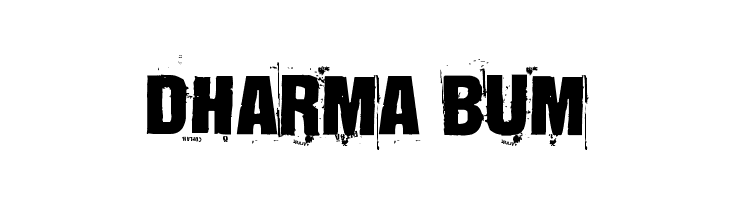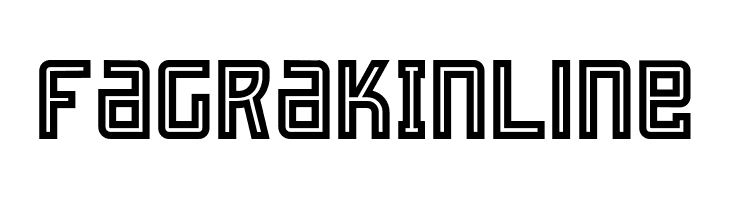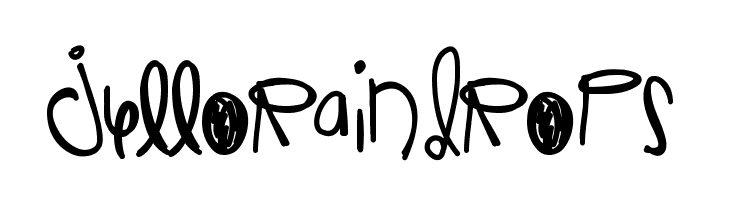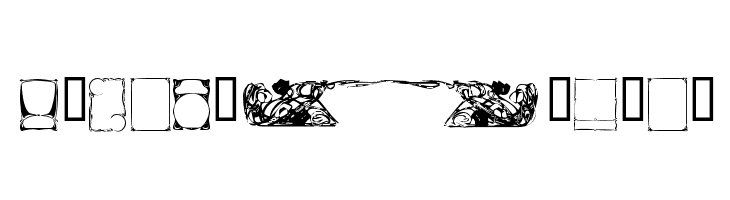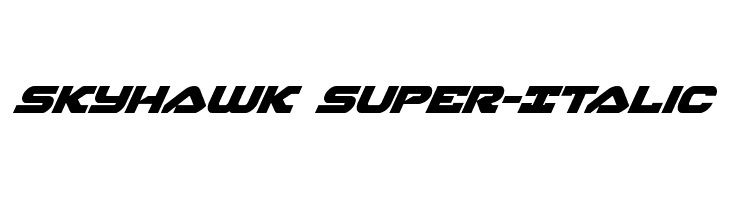
A futuristic, slanted font with bold, condensed characters and medium contrast.
A playful, decorative font with bold, textured letters filled with sprinkle-like patterns.
A bold, italicized font with dynamic slant and strong visual impact.
Hand-drawn floral doodle decorative set.
A playful, handwritten font with fluid, irregular strokes.
A bold, decorative font with a vintage, three-dimensional style.
A playful, casual handwritten font with smooth curves and a friendly feel.
A bold, 3D outlined font with a futuristic and dynamic style.